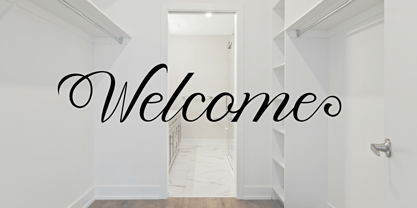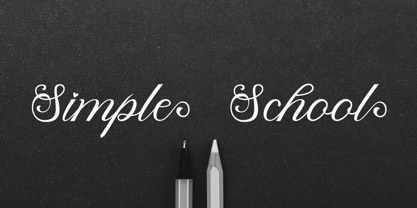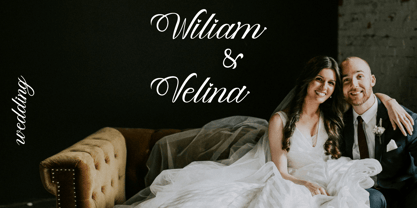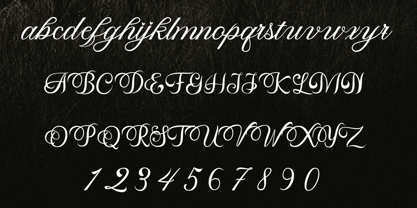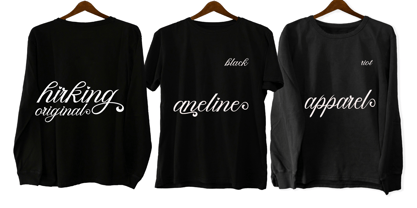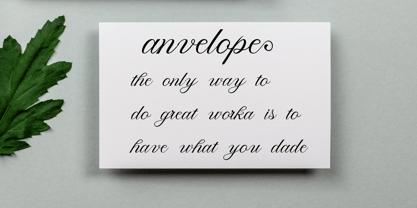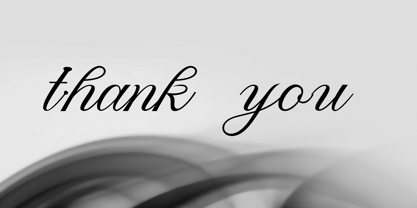
Jenita
by Mars Creative
The Jenita Font Family was designed by Al Muzammil and published by Mars Creative. Jenita contains 1 styles. More about this family
"Jenita" is a handwritten font with a natural and elegant style. Its smooth strokes and casual flow create a modern handwritten look that feels warm and personal. Perfect for branding, invitations, greeting cards, quotes, logos, posters, and social media content, this font adds a touch of authenticity and charm to any design project. It conveys: Natural & Personal